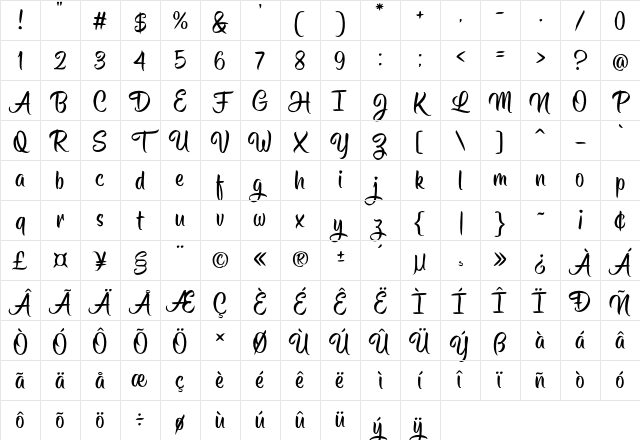
Complete Hisyam Facelift Regular glyph index. Displaying only characters natively supported by Hisyam Facelift Regular font.
Hisyam Facelift is a composed and adaptable typeface that performs quietly and consistently across a wide range of design contexts.
Who designed the Hisyam Facelift Regular font?
This font was published by Hendra Pratama. Check the technical specs section for copyright and designer details.